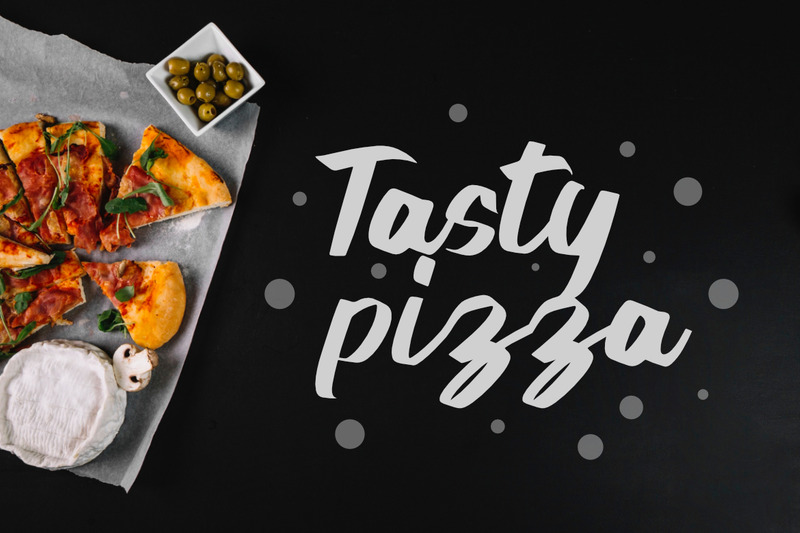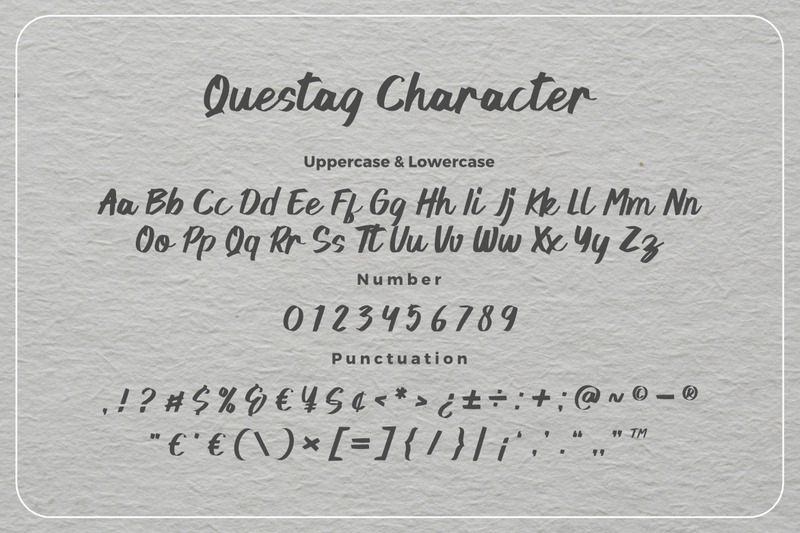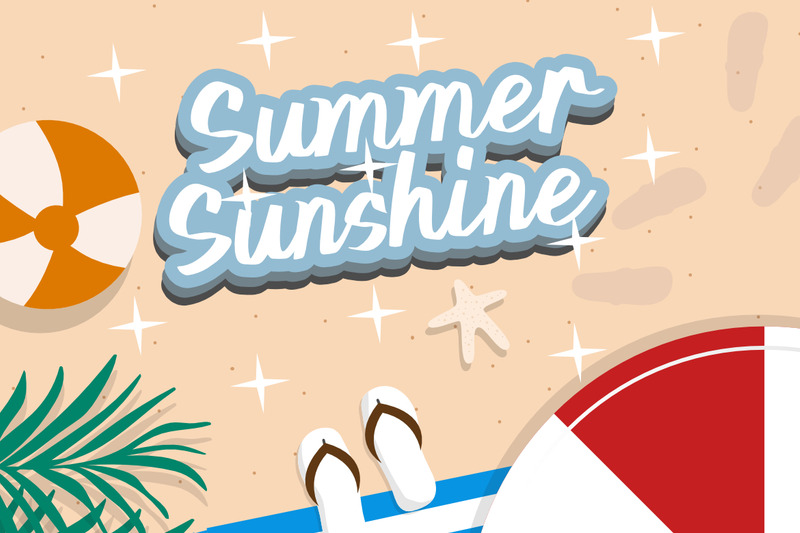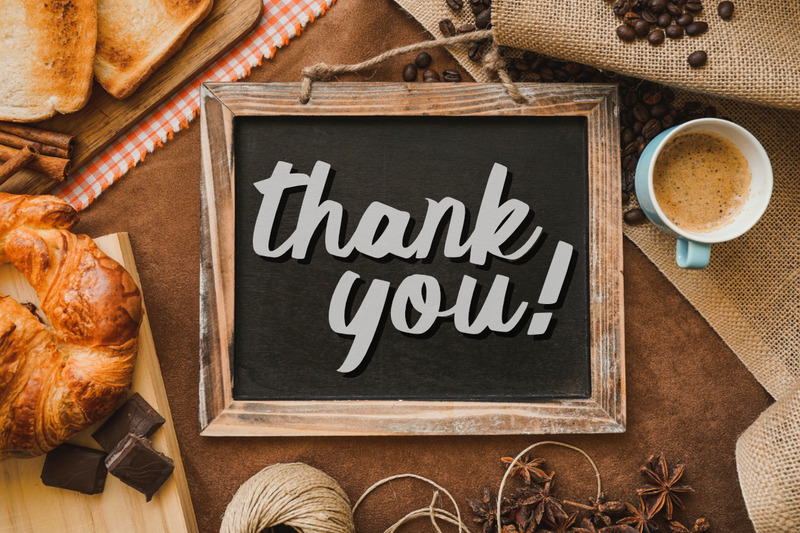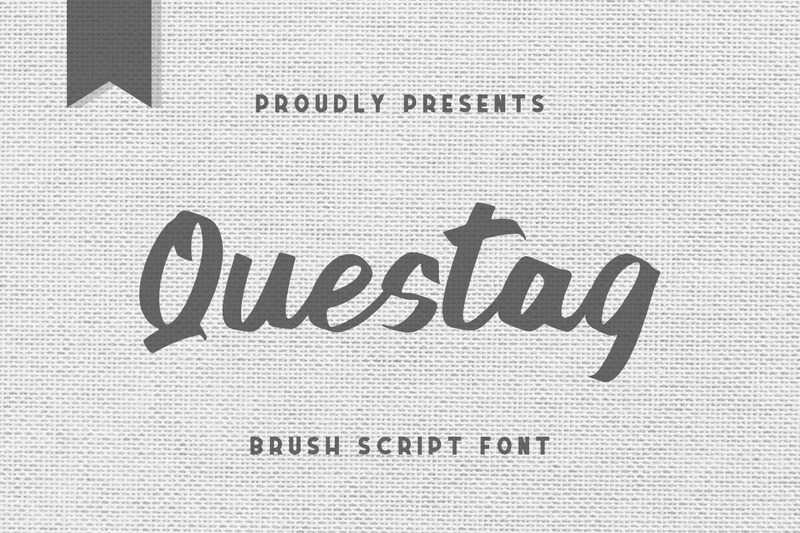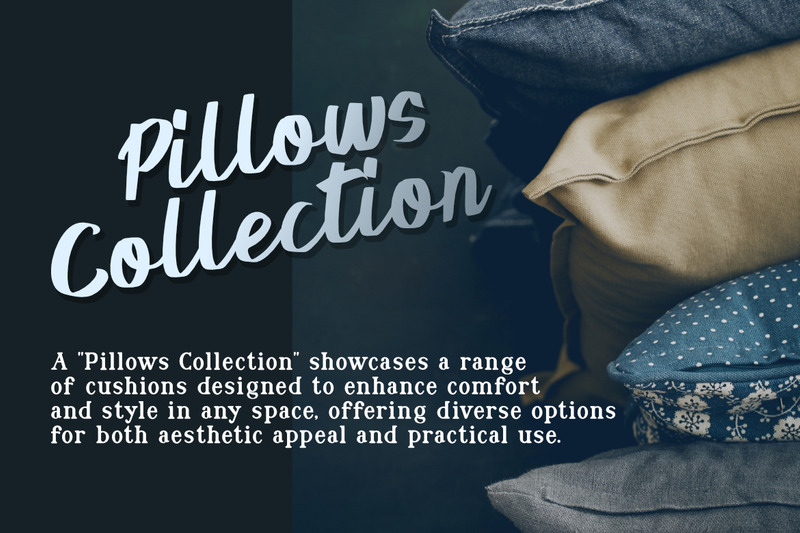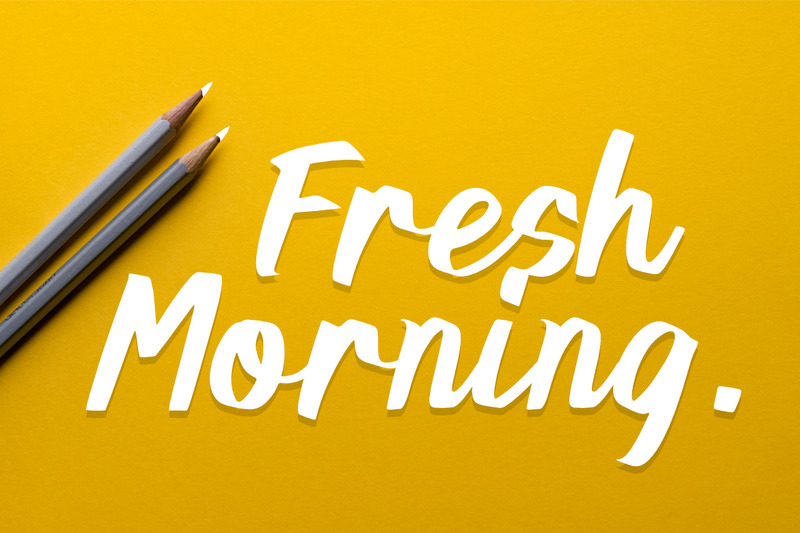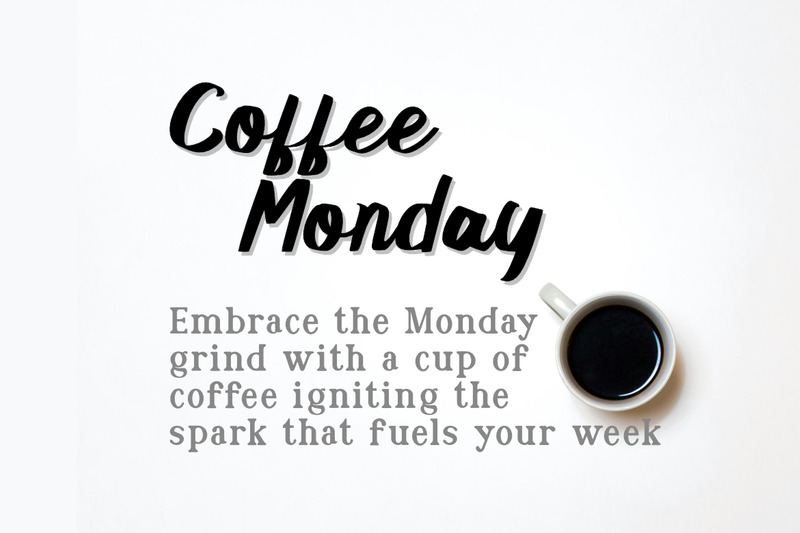
Questag a New Brush Script Premium Font
**Questag Brush Script Font**, This font is made with a high premium quality level which you can use as flyers, quotes, posters, banners, packaging, merchandise, logotypes and much more.
**FEATURES :**
* Uppercase
* Lowercase
* Number
* Punctuation
* Multilingual
* PUA Encode
* Opentype